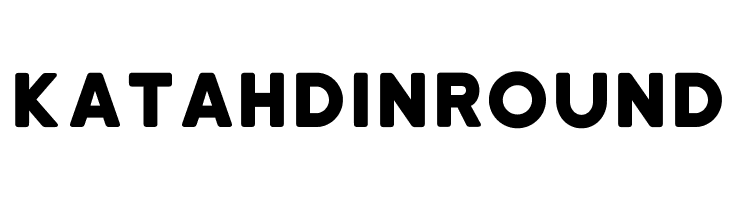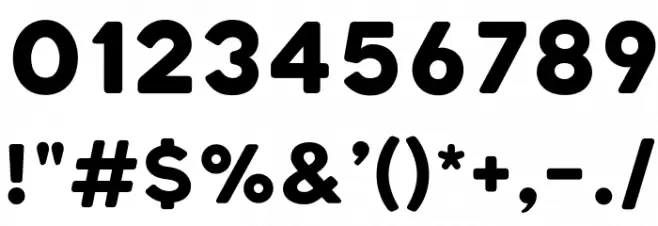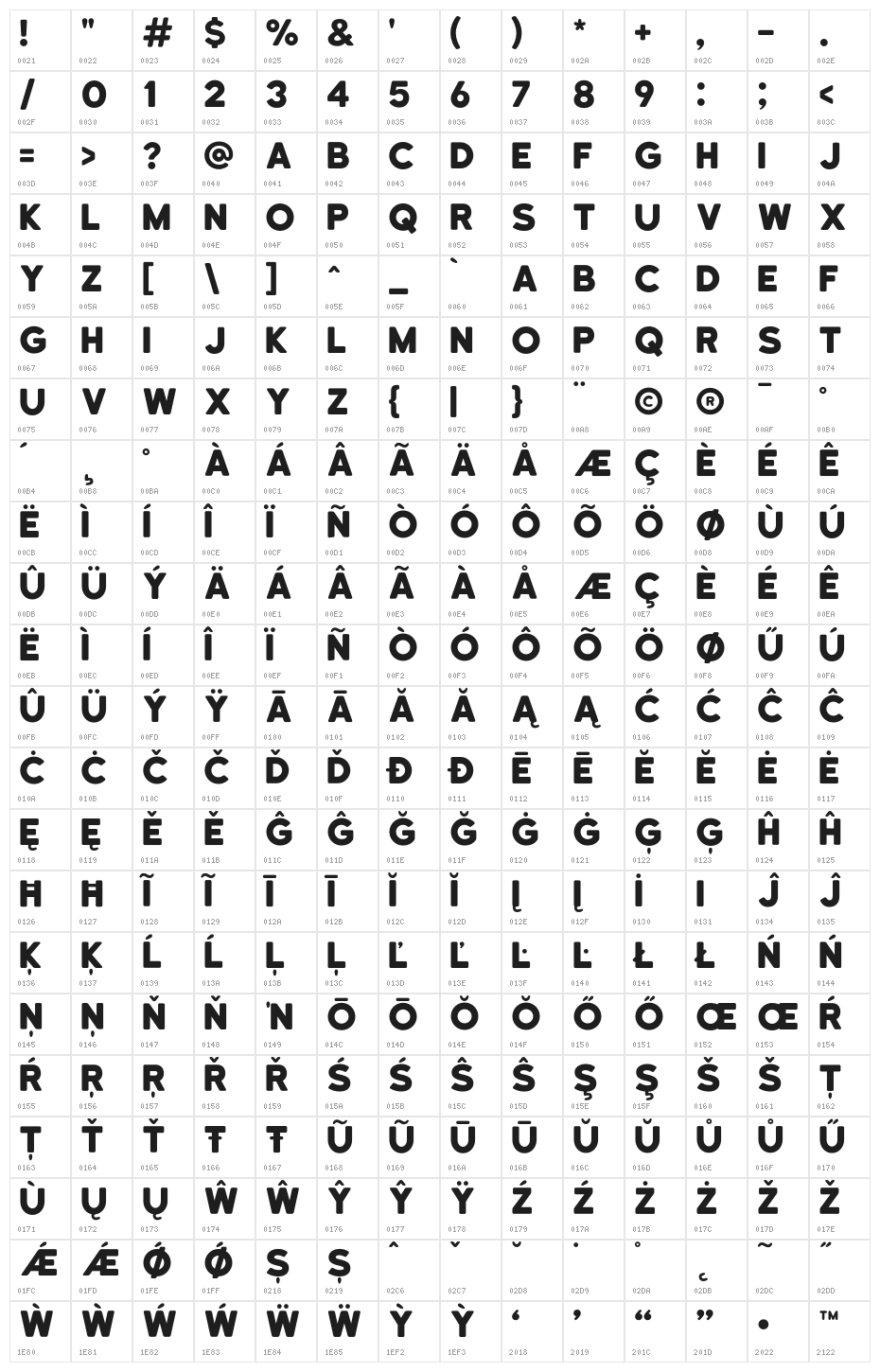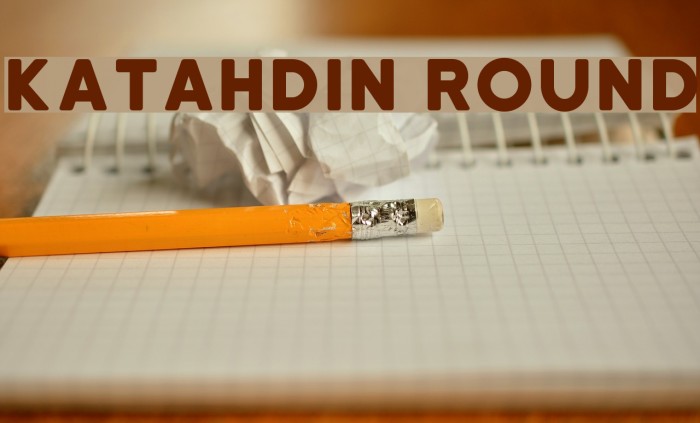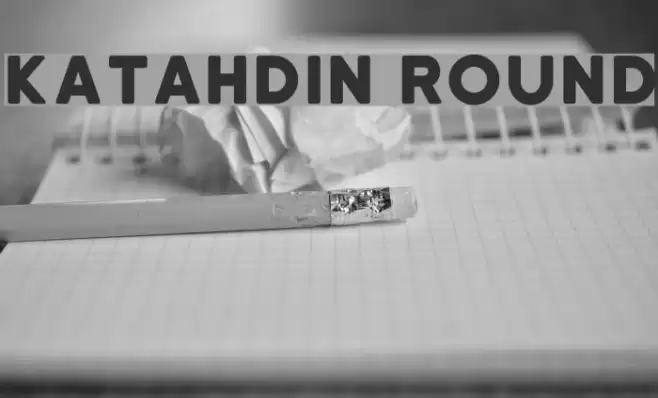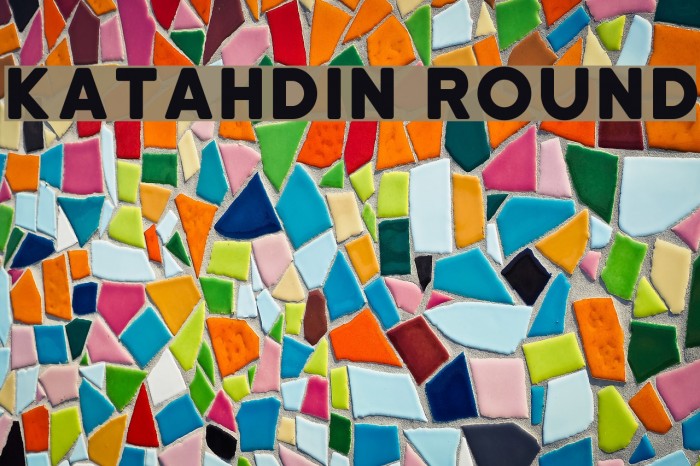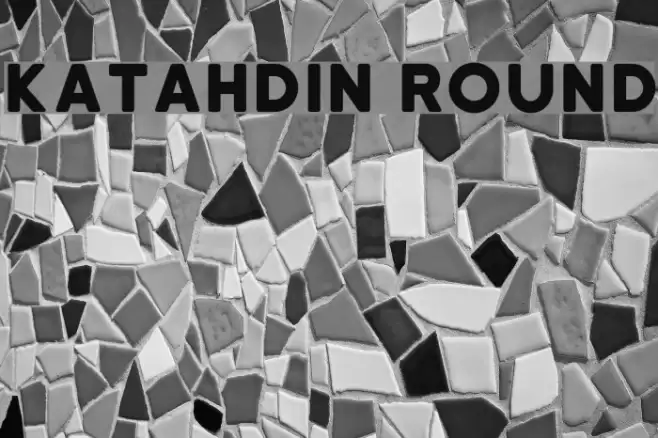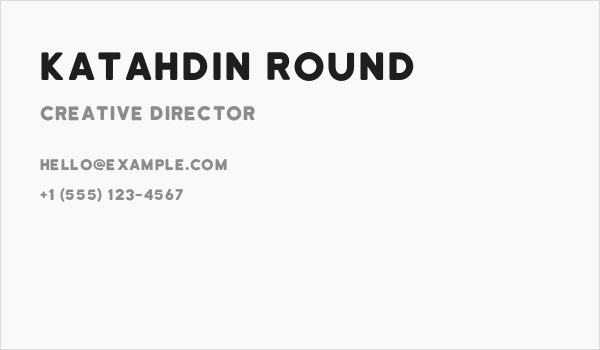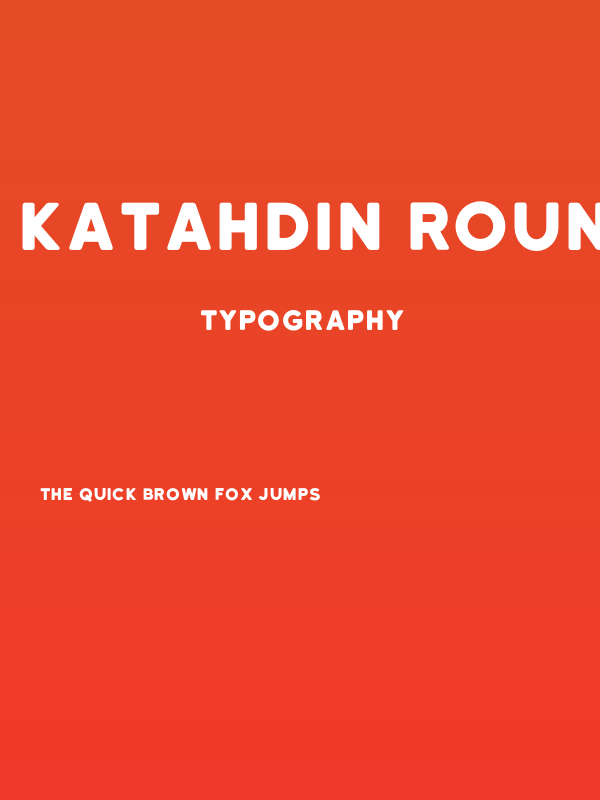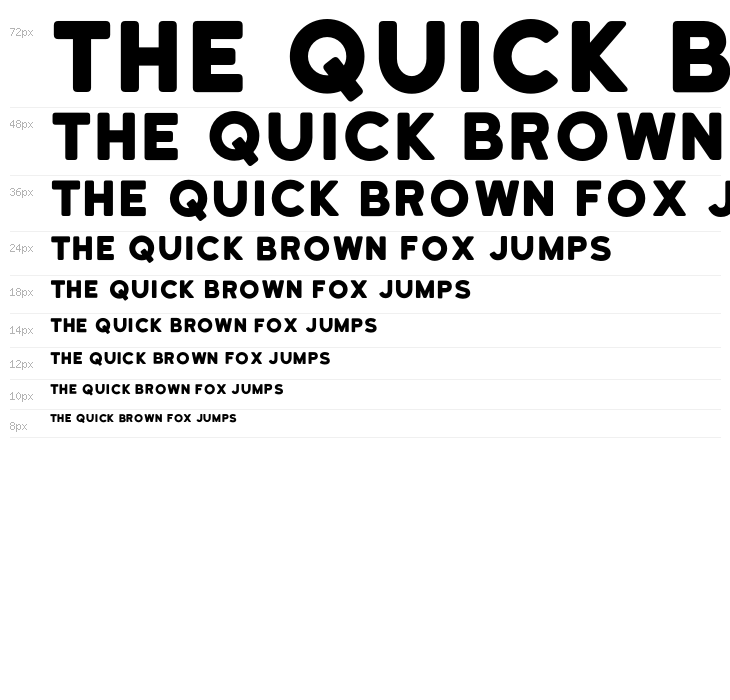
Katahdin Round Font
Katahdin Round Description
This font features a bold and rounded sans-serif style, characterized by its smooth curves and uniform stroke width. The letters are evenly spaced, providing a clean and modern appearance. The uppercase and lowercase letters maintain a consistent design, with rounded edges that contribute to a friendly and approachable look. The numerals and special characters follow the same design principles, ensuring a cohesive visual identity across all glyphs. This font is highly legible and versatile, making it suitable for a variety of design applications.
| Proposed Projects | Ideal for branding, signage, headlines, and digital interfaces where a modern and friendly appearance is desired. |